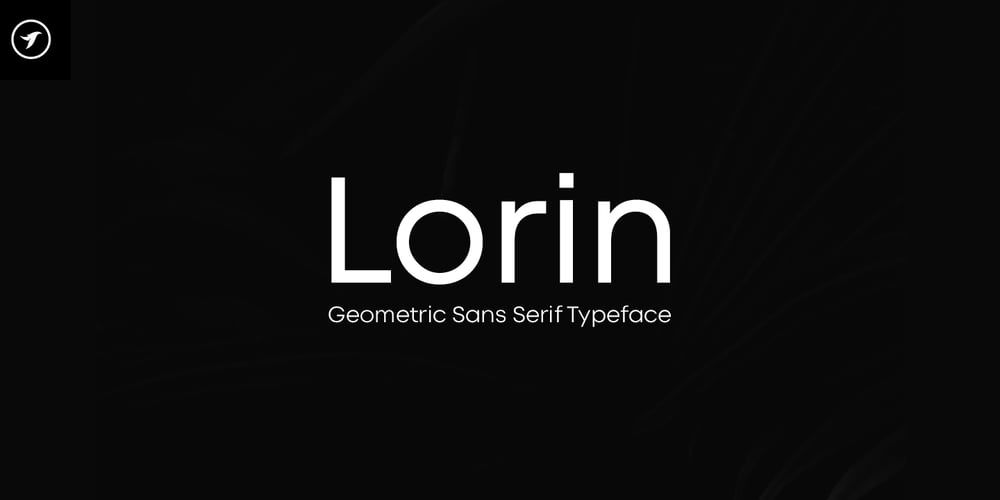
Lorin Font Family was designed by Jean Johnson and published by Designova. Lorin contains 8 styles and family package options. LORIN is a modern geometric Sans Serif typeface with a great focus on the aesthetic quality of typography. The concept of LORIN is inspired by some of the classic geometric fonts but with added quality and charm.LORIN will be best suited for creating any type of content such as logotype, headlines, normal body texts, big posters and anything that you like. If you add some letter spacing you will get a unique style that you always find in high-profile fashion web stores and minimal portfolio websites.